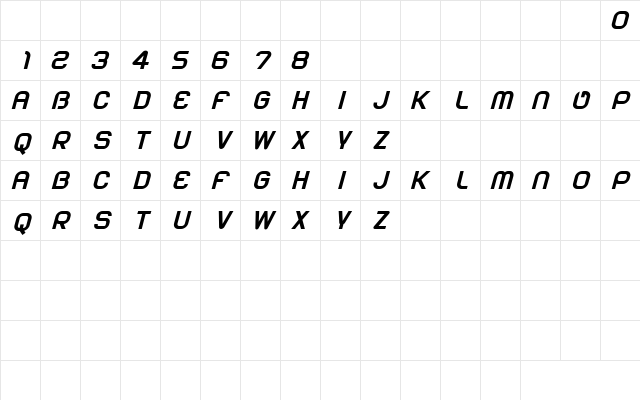
CF Saturn 21 PERSONAL Regular
| Foundry | Cloutierfontes |
| Designer | Steve Cloutier |
Design Context for CF Saturn 21 PERSONAL Typeface
CF Saturn 21 PERSONAL is a composed and adaptable typeface that performs quietly and consistently across a wide range of design contexts.